The Hocus Pocus font is a captivating typeface inspired by the beloved “Hocus Pocus” movies. With its whimsical and magical style, it is reminiscent of the Harry Potter fonts.
The original “Hocus Pocus” movie, released in 1993 by Disney, introduced viewers to the story of three resurrected witches wreaking havoc in Salem, Massachusetts. The font that resembles the movie’s logo title is called “Hombre Font“, a free fancy font created by Thomas Oldfield.
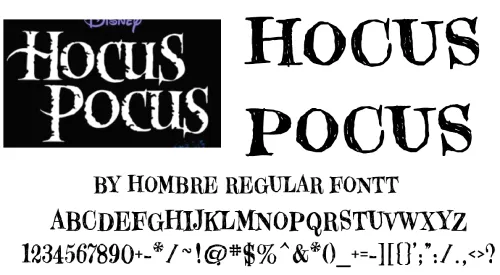
Another similar font called “Captain Kidd“, a free fancy font created by The Scriptorium in 2005.
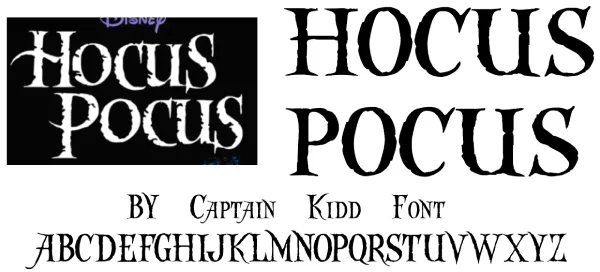
In 2021, the highly anticipated sequel, “Hocus Pocus 2”, arrived as a Disney+ Original movie event. This new installment brings back the Sanderson Sisters and introduces two young women who inadvertently revive them in modern-day Salem.
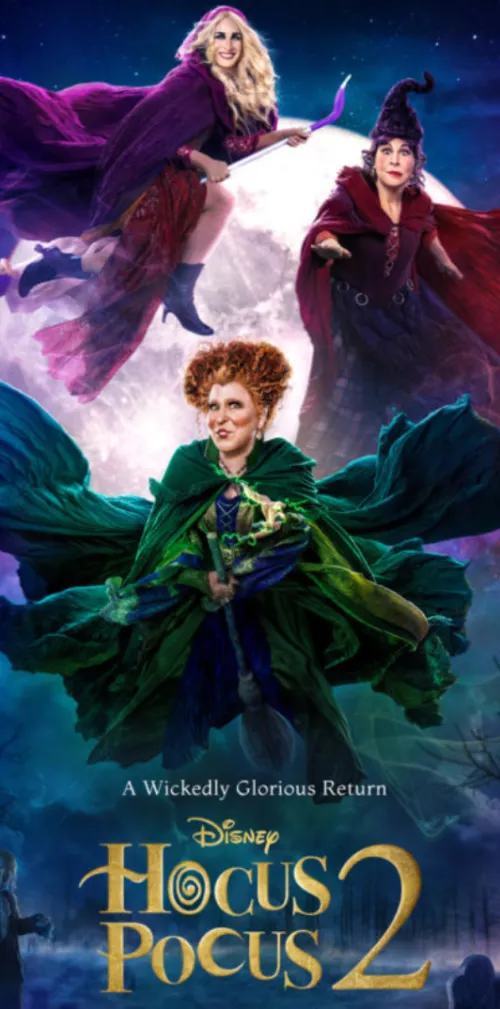
The font used in the logo of “Hocus Pocus 2” is aptly named “Hocus Pocus” by Nubefonts. This font, licensed for personal use, captures the essence of the movie and further immerses viewers in its magical world.
With their captivating and unique styles, they add a touch of magic to any project, whether it’s designing invitations, creating themed graphics, or adding a spellbinding element to your personal creations.
In short, the “Hocus Pocus Font” and its variations are sure to captivate audiences and add a touch of magic to your projects, just like the beloved movies that inspired them.